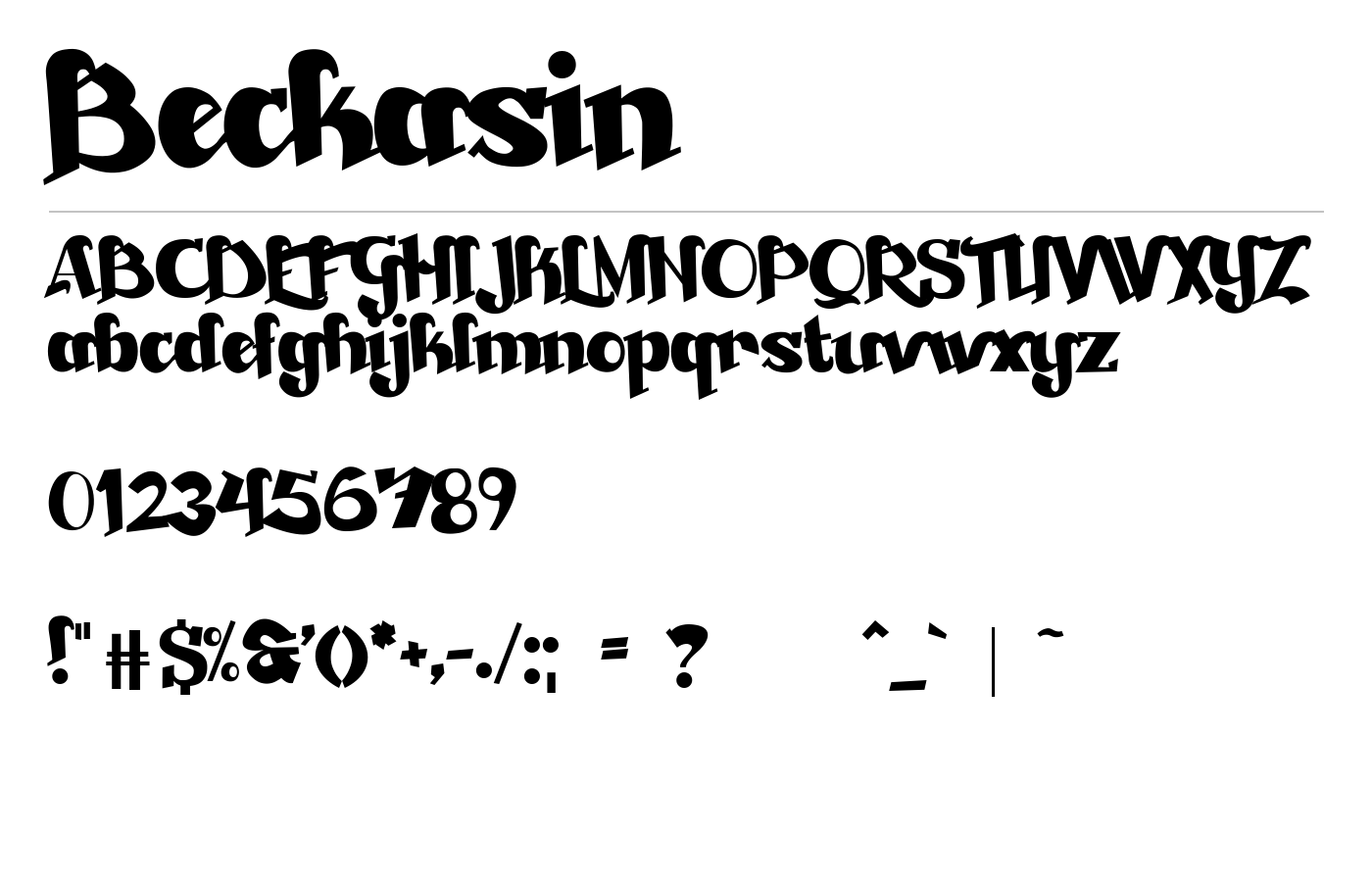
Beckasin is a bold, decorative serif font with a playful yet vintage character, featuring sharp angles and exaggerated serifs that give it a unique, slightly quirky style. Its high contrast strokes and varied letter shapes make it ideal for eye-catching headlines, posters, and branding that seeks to convey a distinctive, artistic personality. This font works best in display use where its strong personality can shine without sacrificing readability.
Beckasin Font
About Beckasin Font